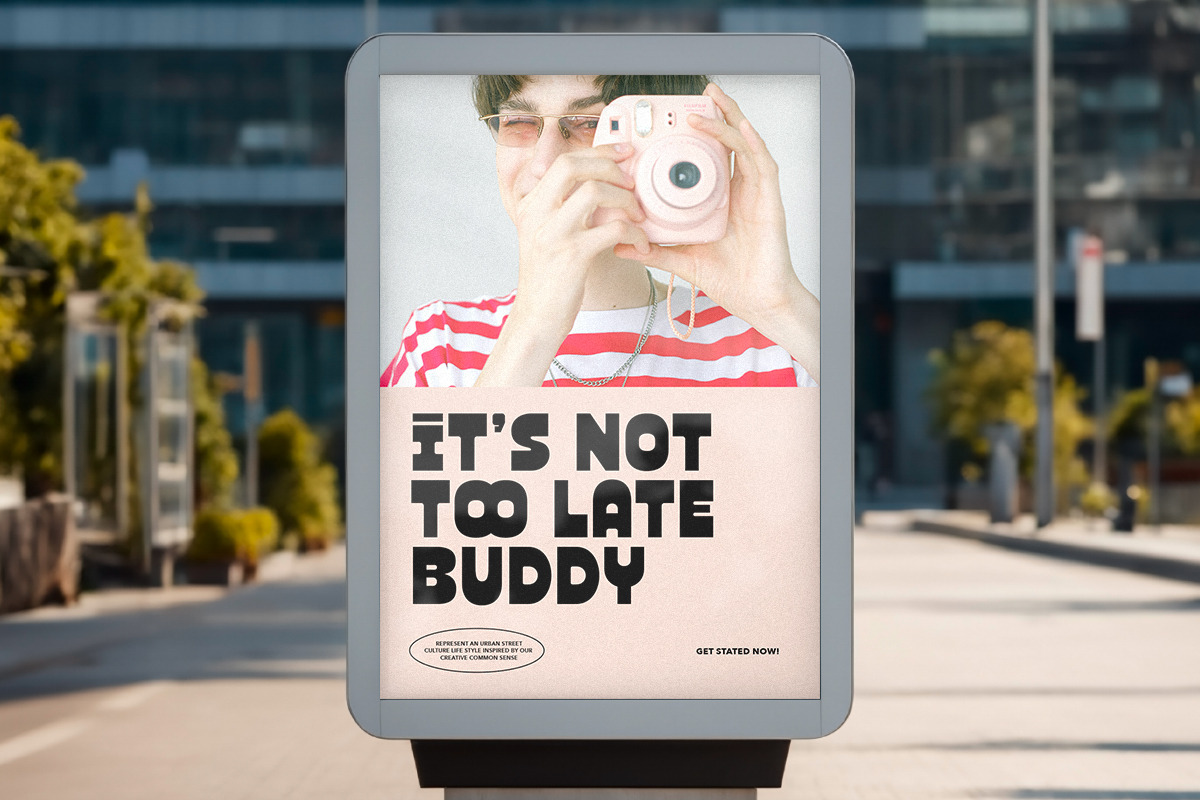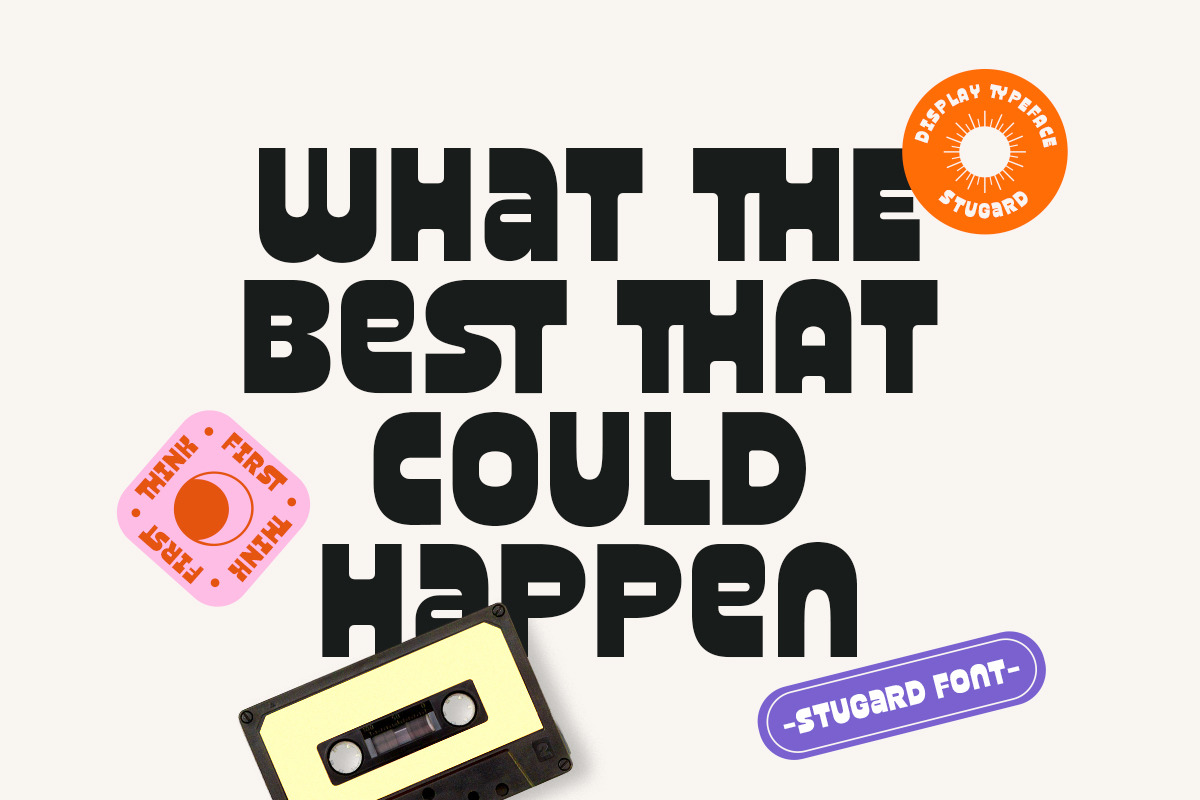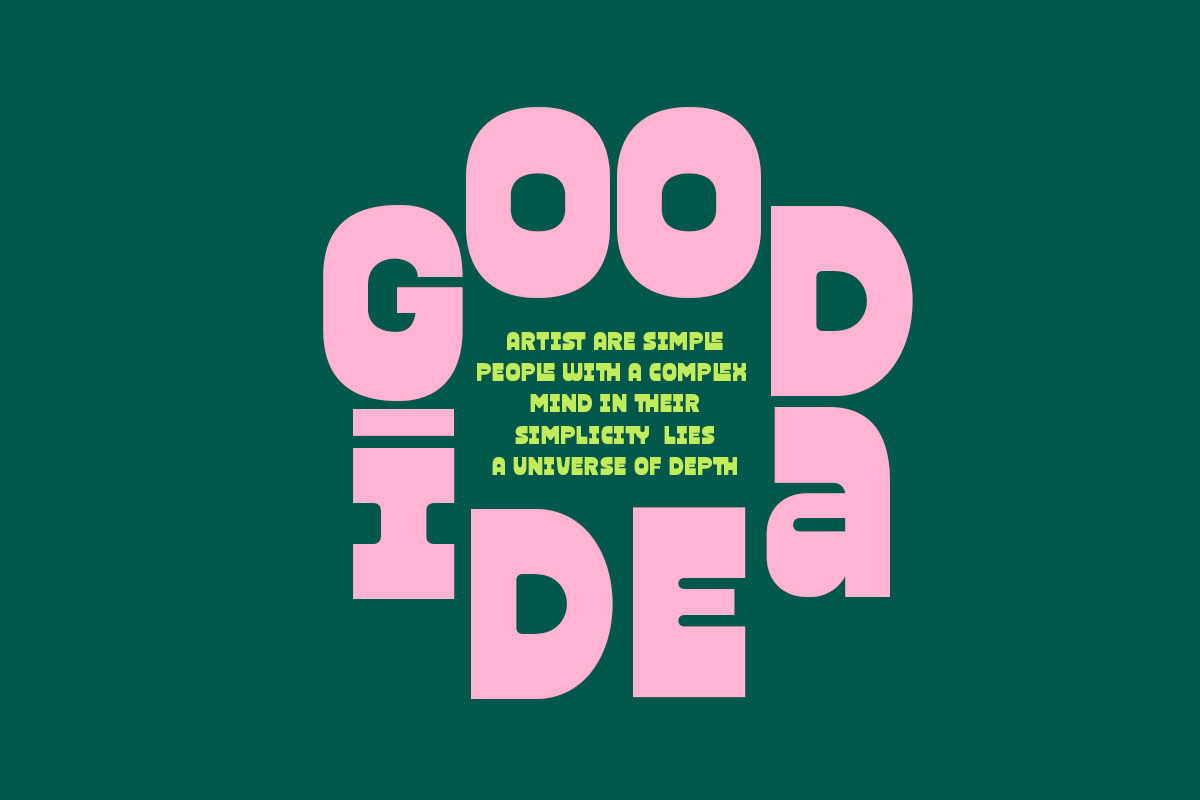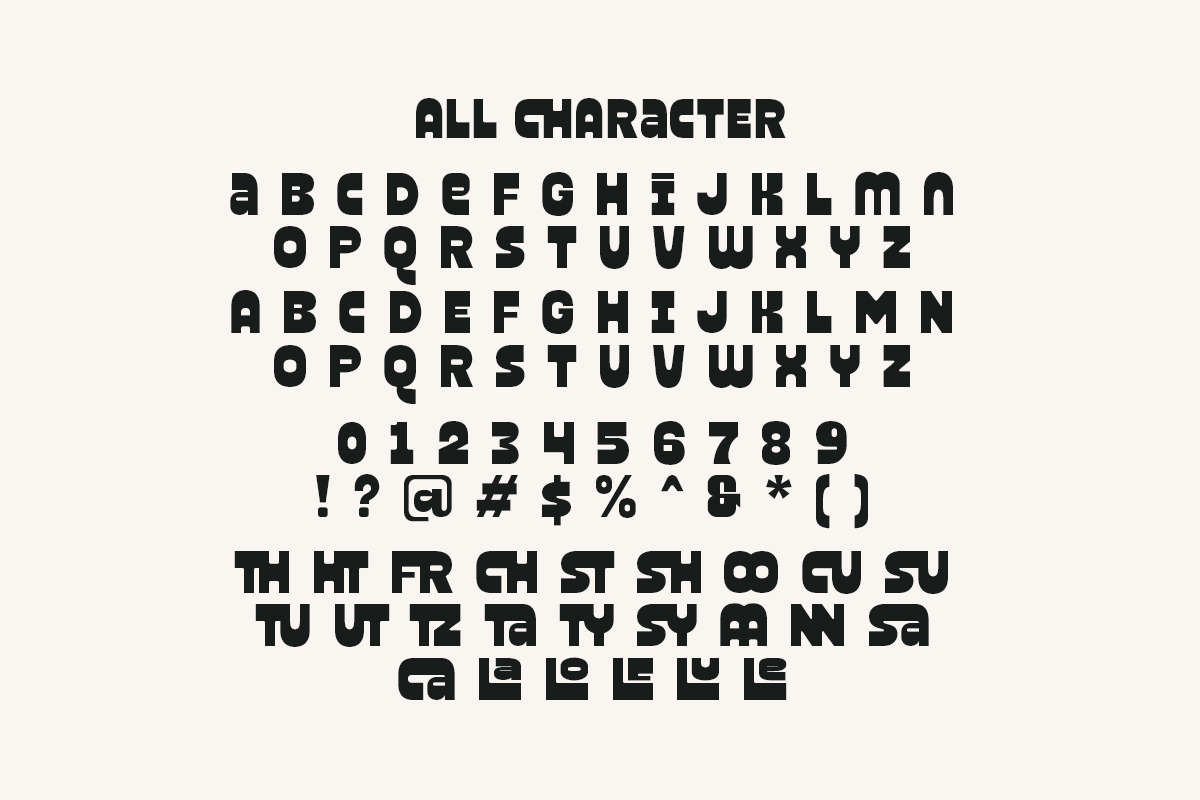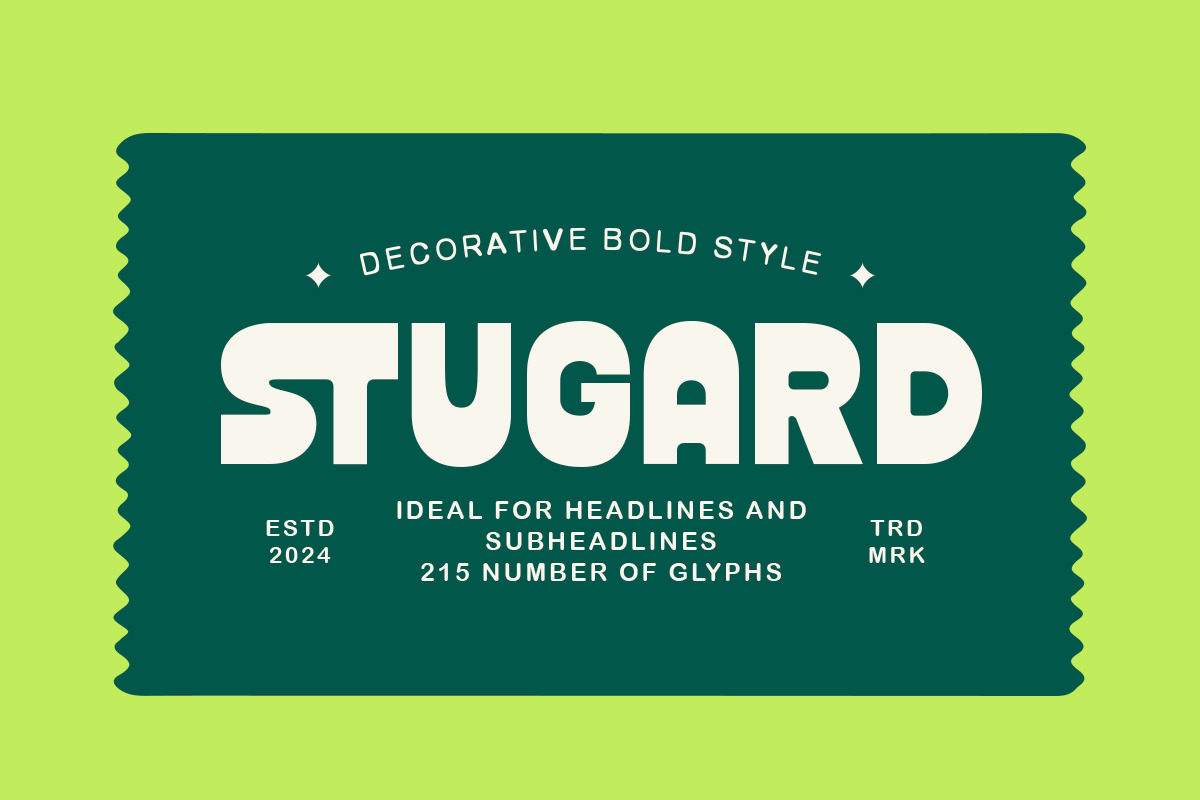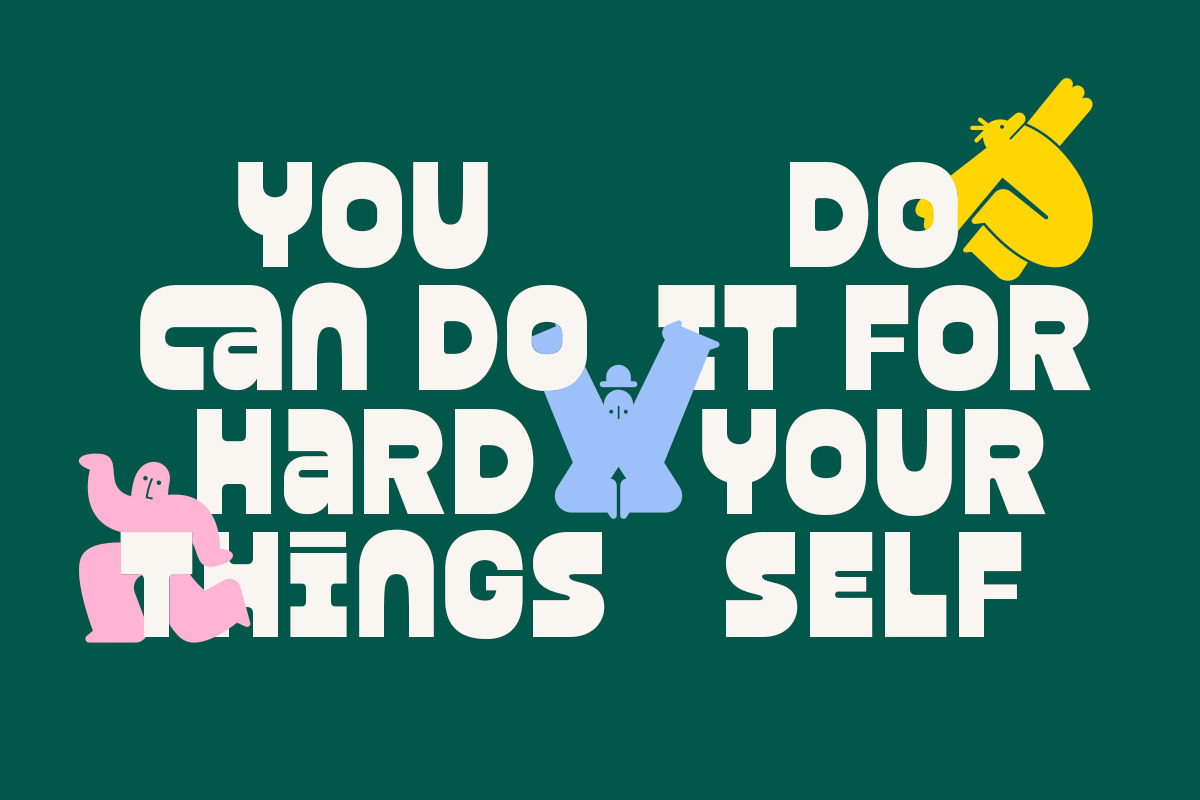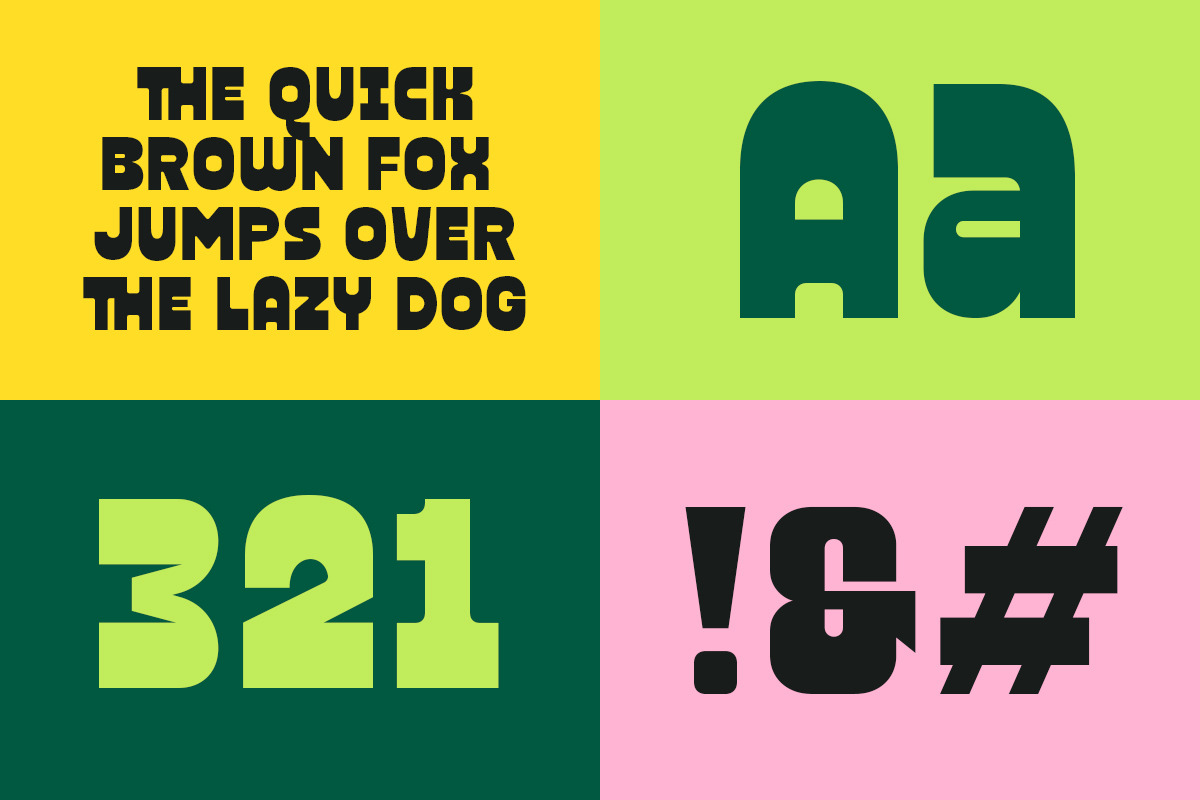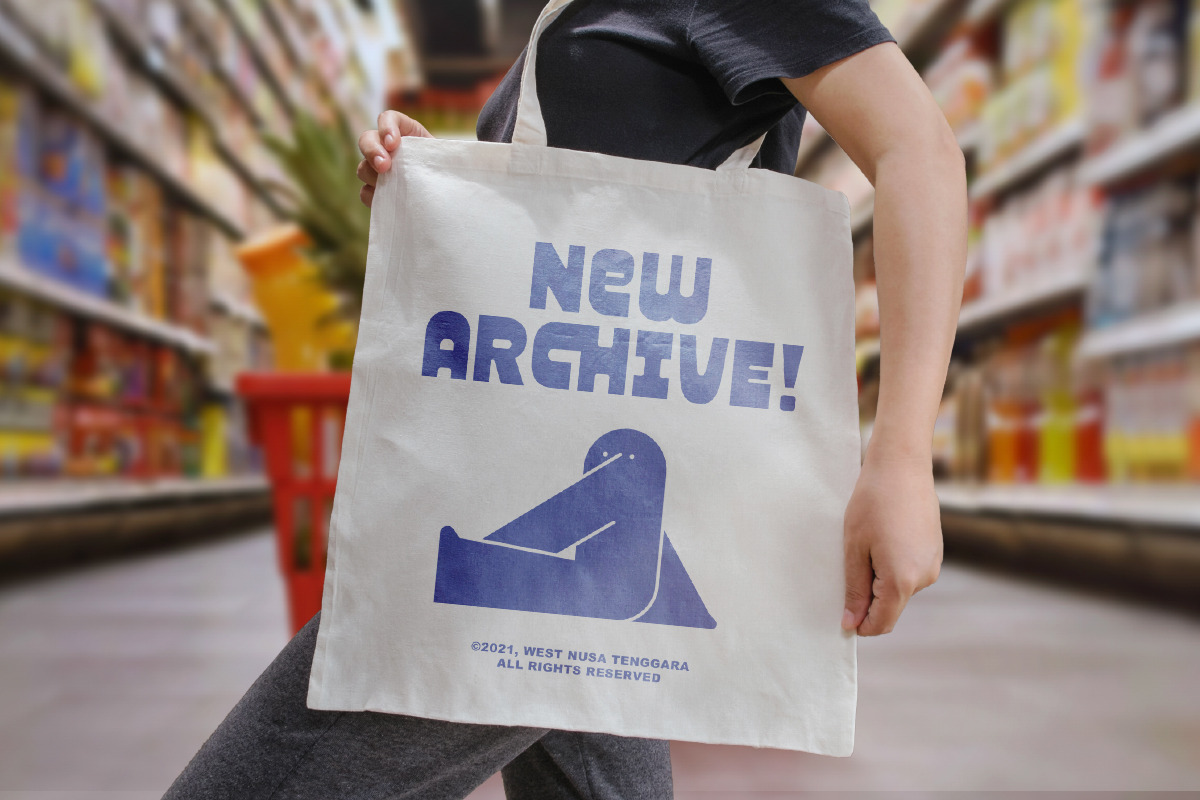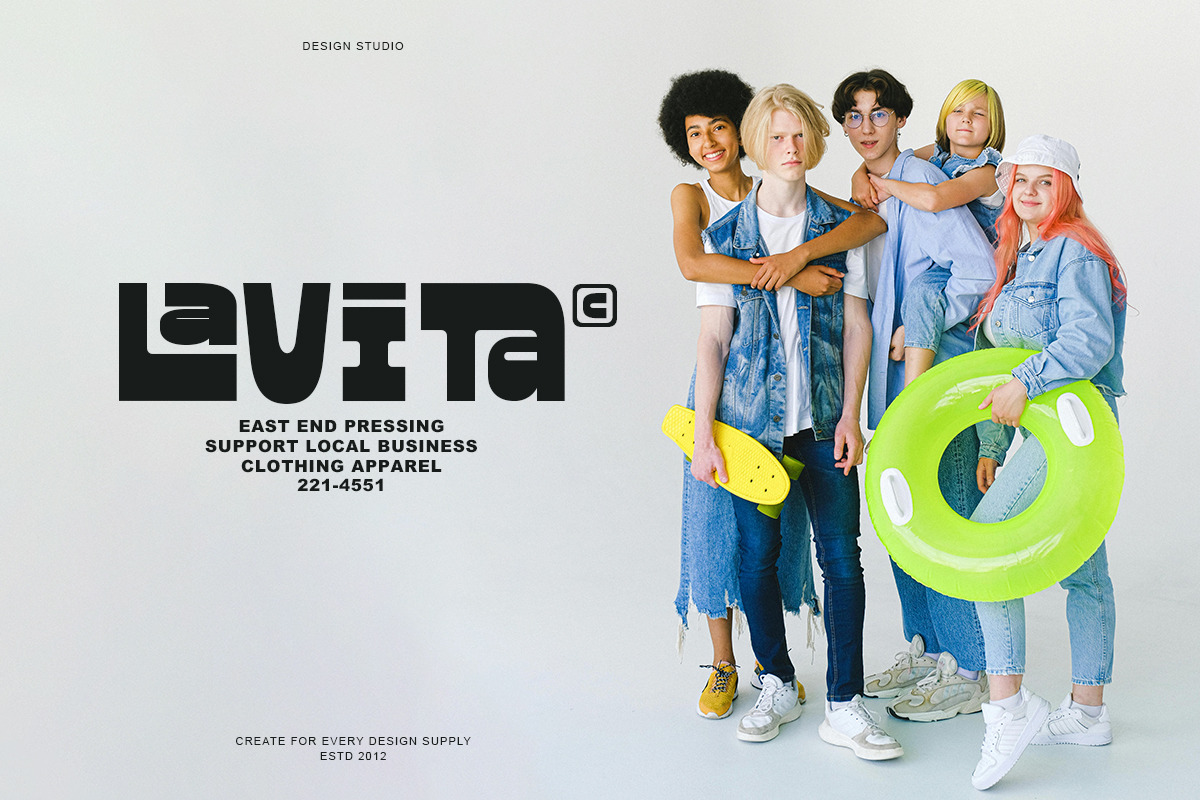
Stugard - Bold Reverse Font
Stugard is a bold and reverse sans serif based font. You can use this font for any purposes especially for the trendy modern design. This font also suitable for branding, logo, retro design, and quotes. With stylish ligatures, you can make your design more stand out and bold. Stugard also support multi language.